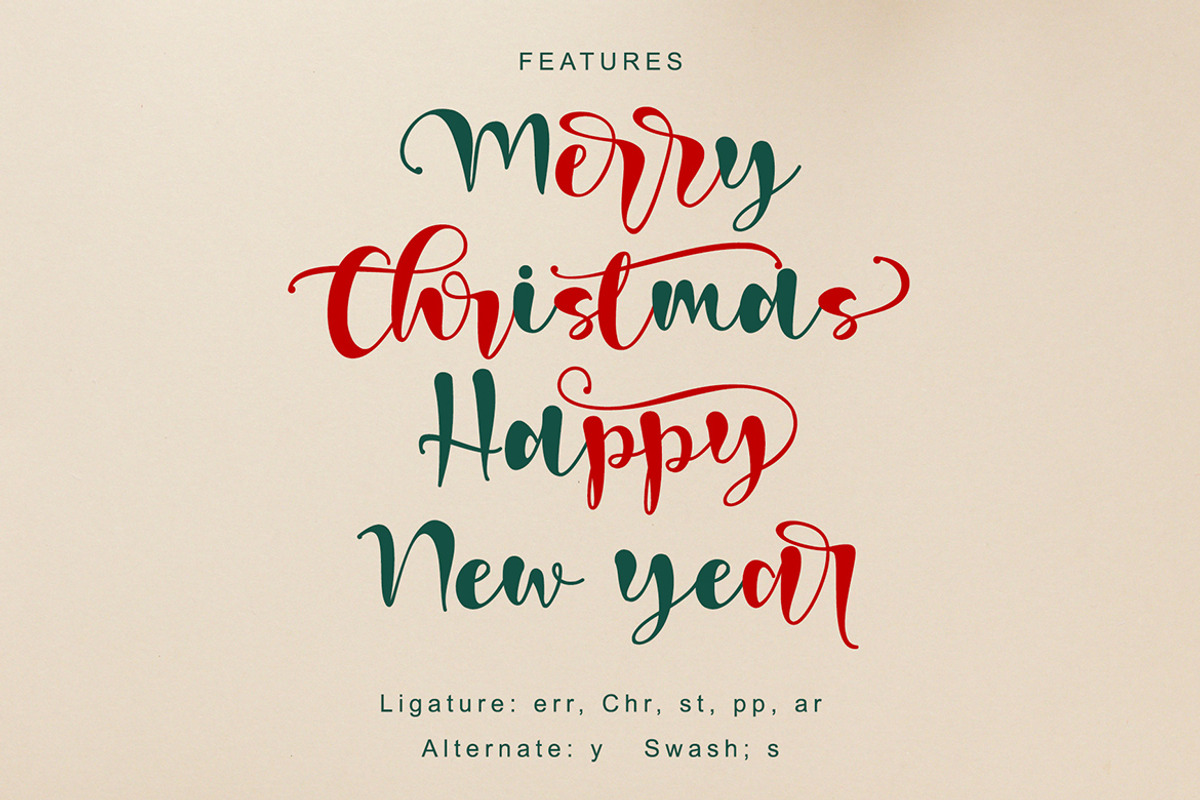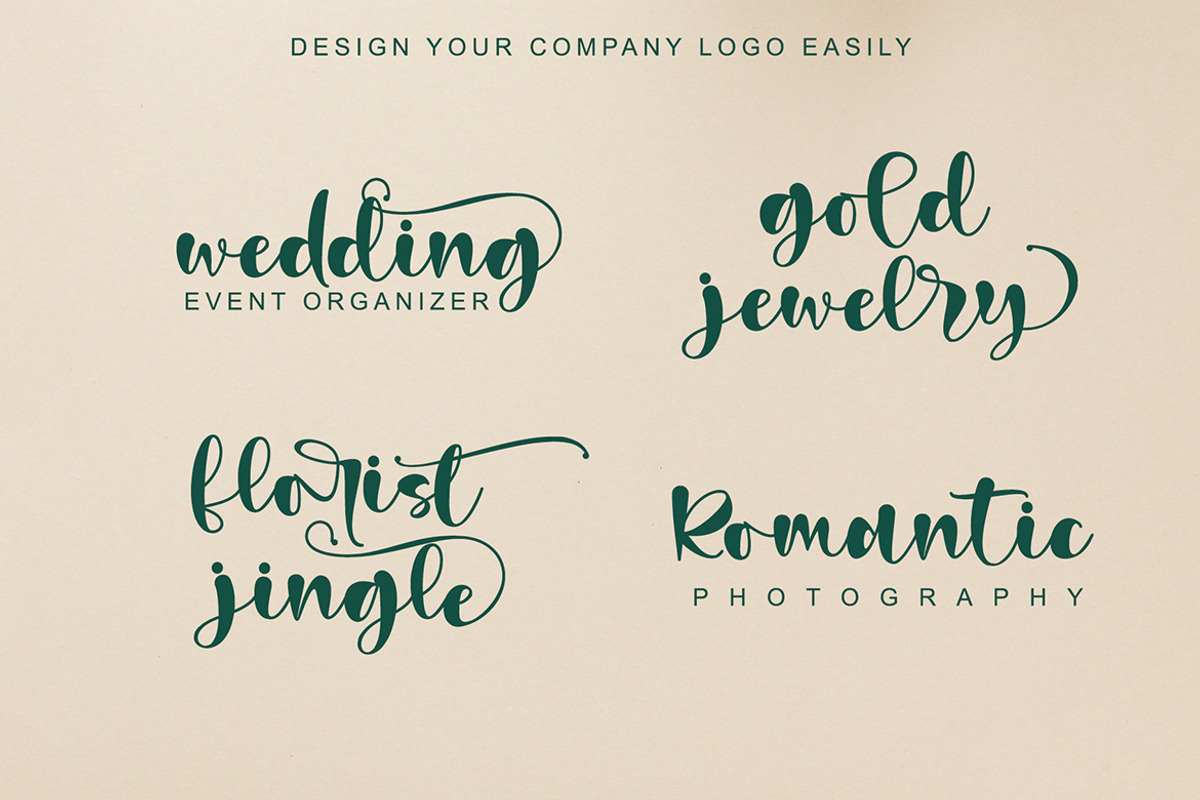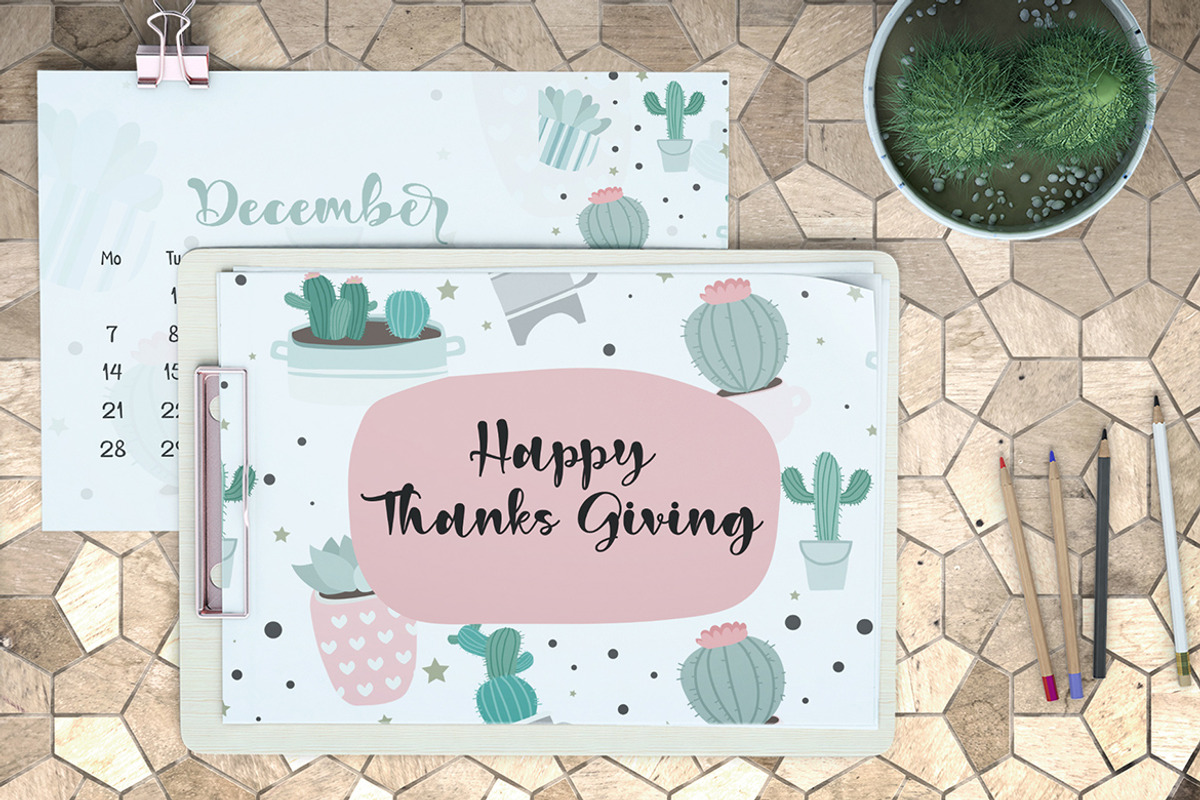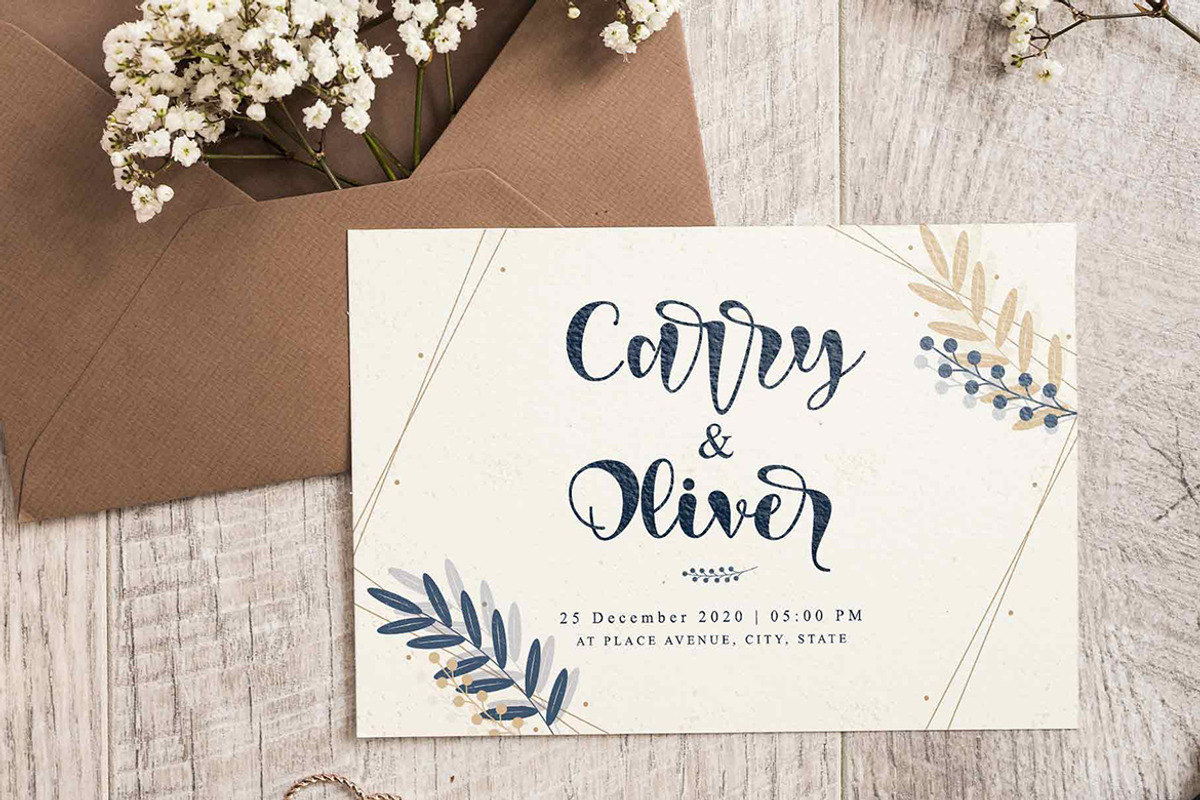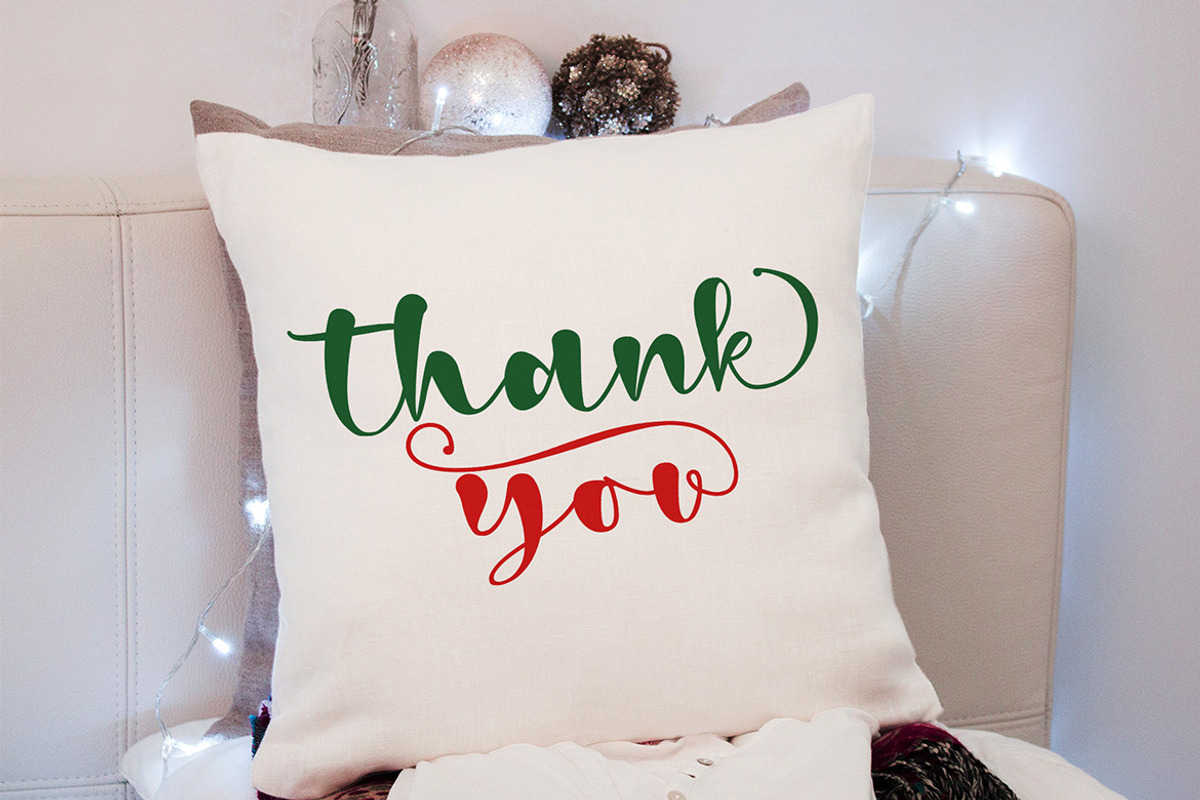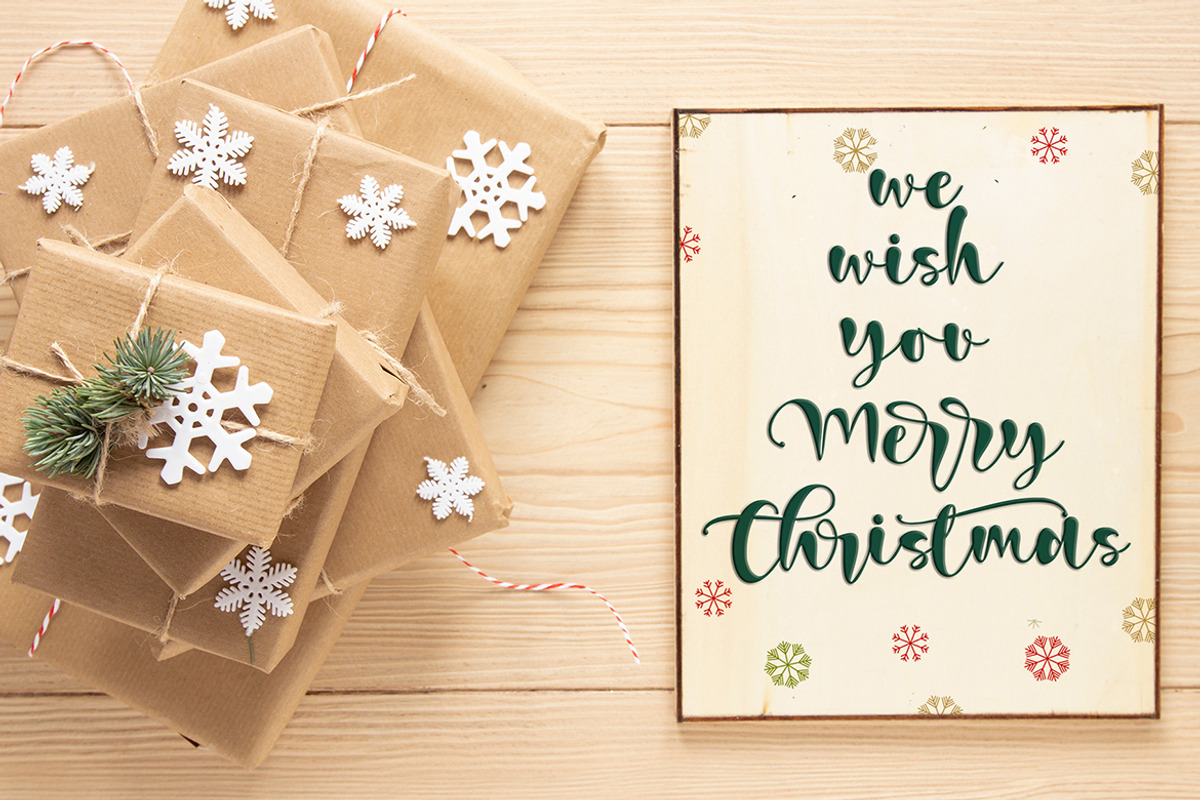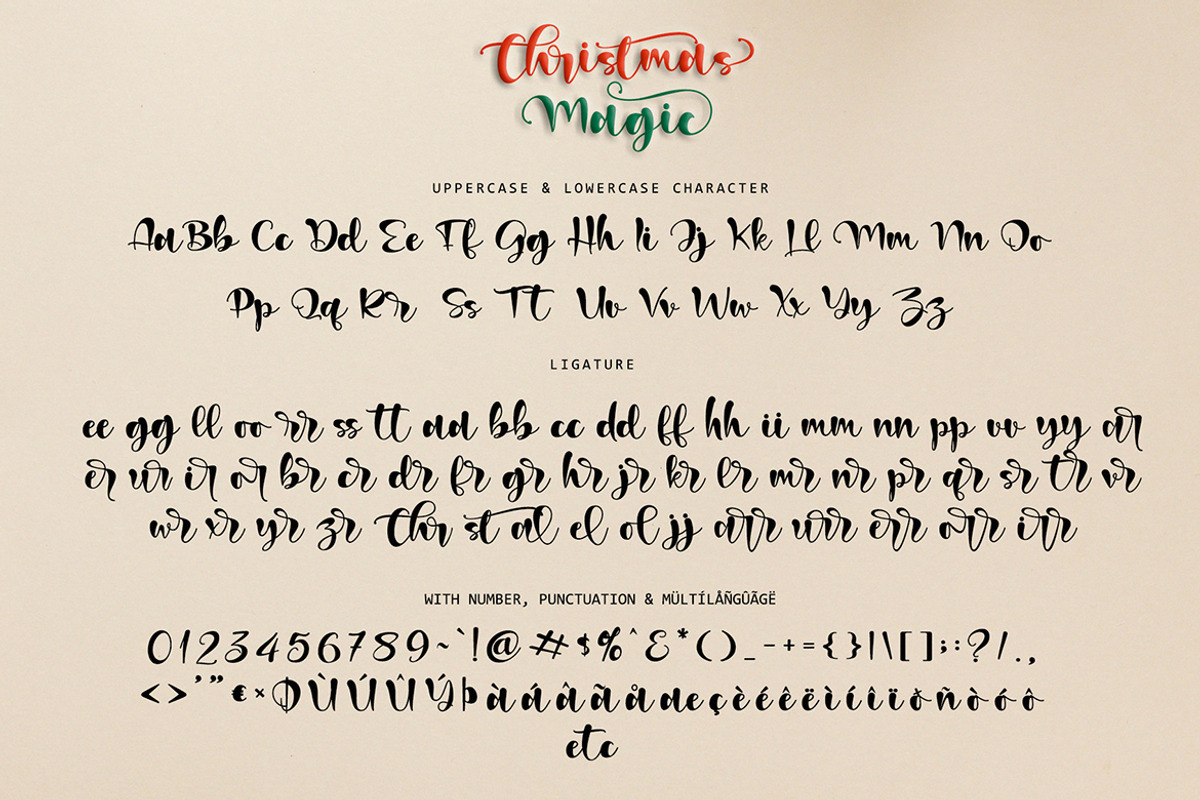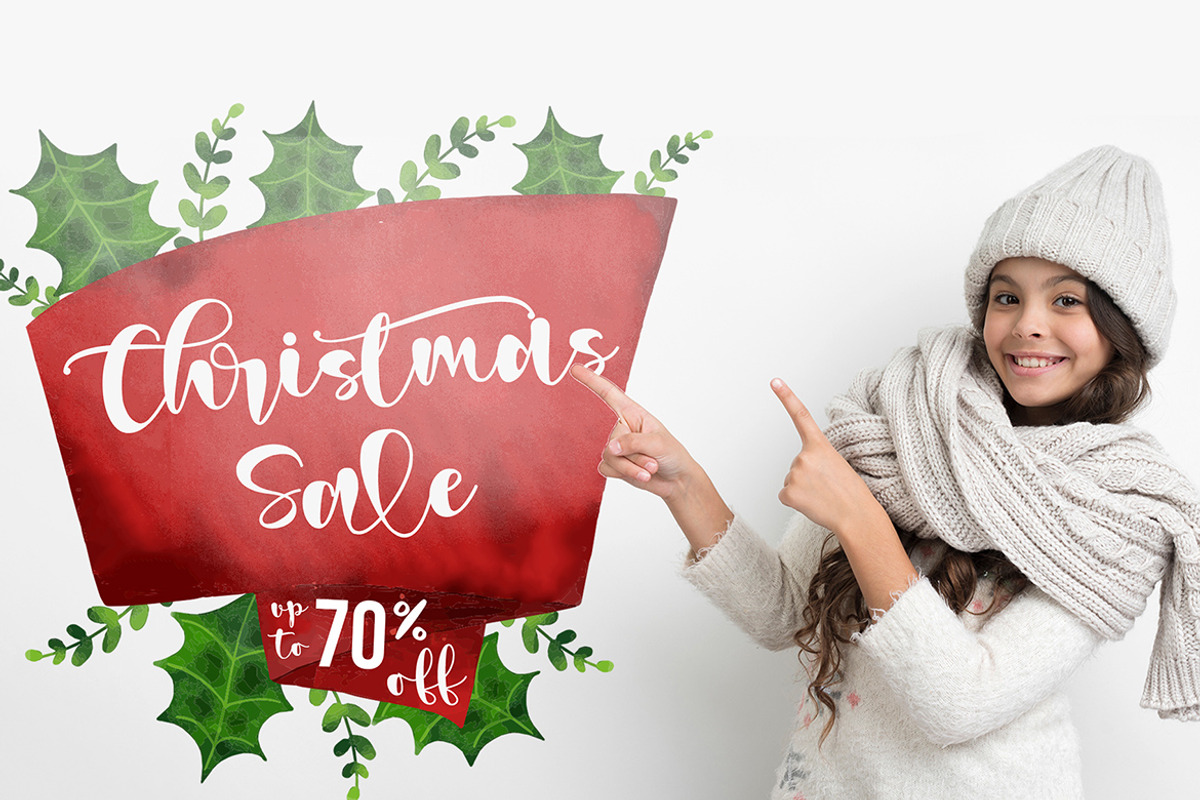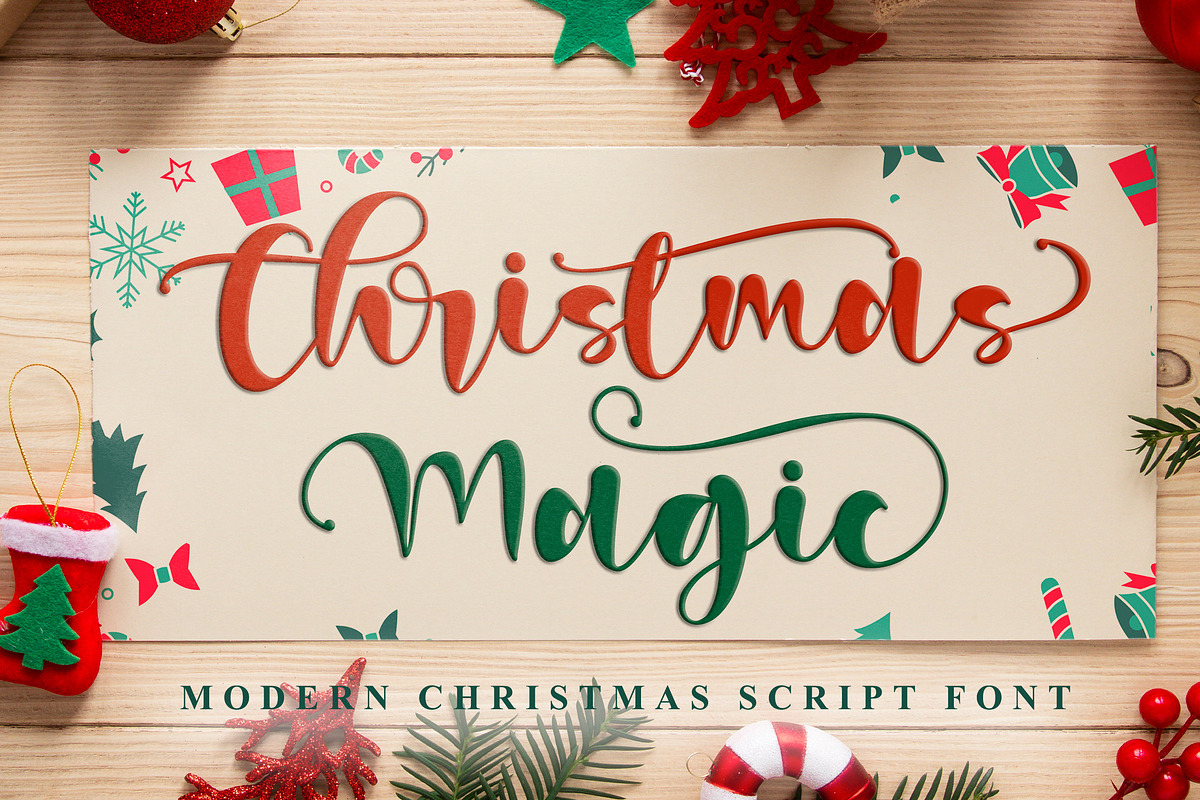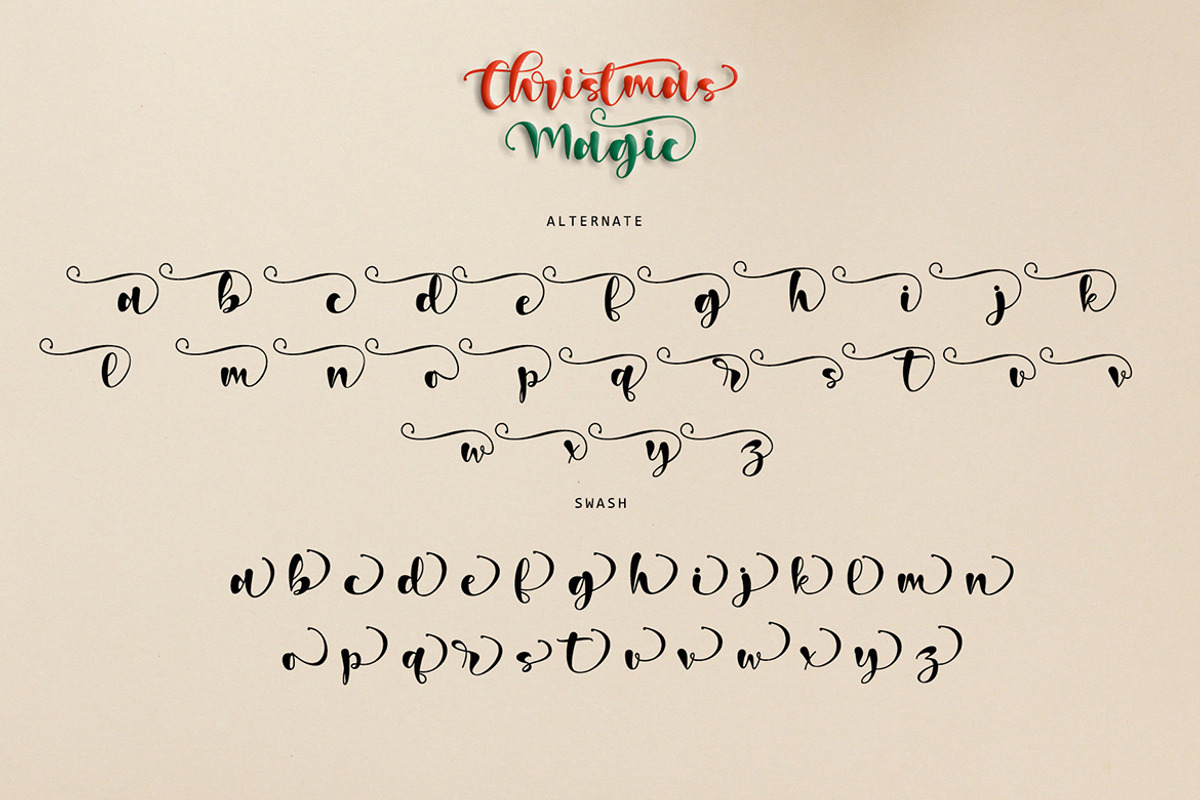
Christmas Magic
Christmas Magic is an elegant and flowing handwritten font. It is PUA encoded which means you can access all of the glyphs and swashes with ease! It features a varying baseline, smooth lines, gorgeous glyphs, and stunning alternates. Fall in love with its incredibly distinct and timeless style and use it to create spectacular designs!
- Support multilingual; ä ö ü Ä Ö Ü ß ¿ ¡
- lowercase and uppercase letters
- Alternate, Swash, & Ligature